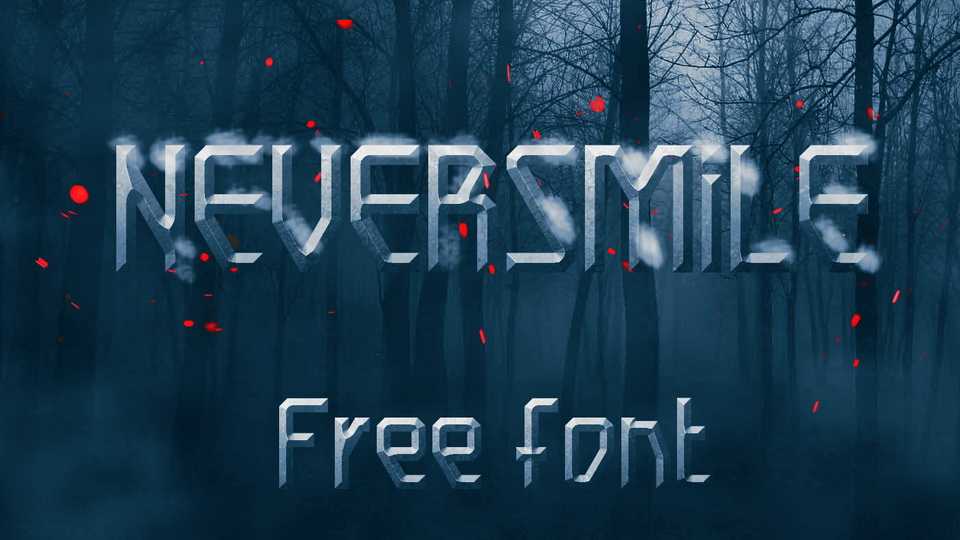
Download NeverSmile font, a straight and sad display typeface that you want to transfer from palm to palm. NeverSmile is not perfect for any project.
Designer: Maxim Raikov